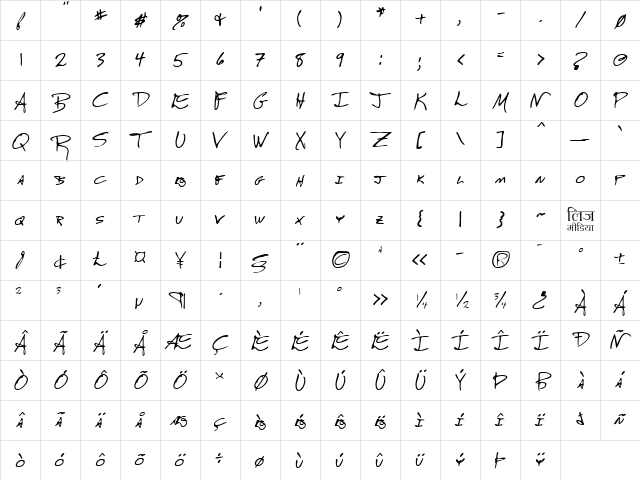
LEHN246 Regular
Design Context for LEHN246 Typeface
LEHN246 is a composed and adaptable typeface that performs quietly and consistently across a wide range of design contexts.